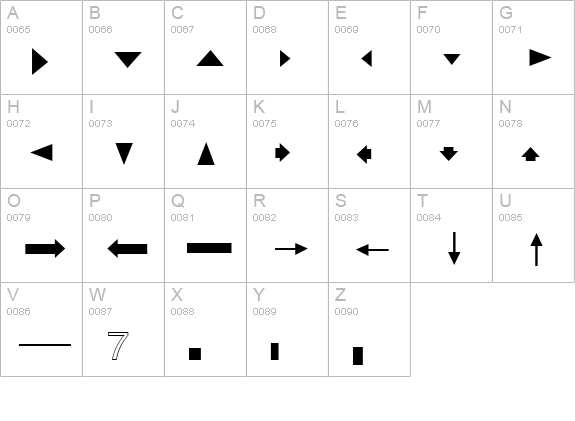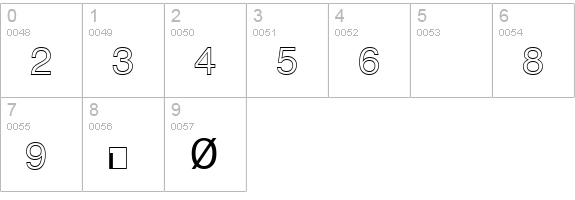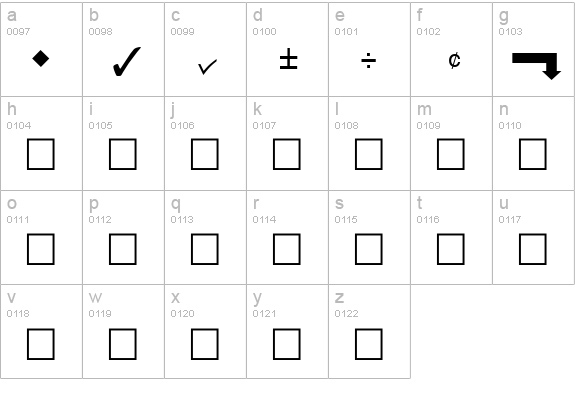
QuickType Pi Font Details
QuickType Pi font is a stunning and versatile typeface that is perfect for adding a touch of elegance and sophistication to any design project. With its sleek and modern appearance, this font is sure to capture the attention of viewers and make a lasting impression. Featuring a wide range of characters and symbols, QuickType Pi font is ideal for various applications, whether it's designing logos, creating eye-catching headlines, or adding a unique flair to your social media posts. Its clean and crisp lines give it a polished look, while its carefully crafted details add a sense of refinement. One of the standout features of QuickType Pi font is that it is absolutely free. Yes, you read that right! This incredible font can be freely downloaded at FontsMarket.com, allowing you to enhance your designs without breaking the bank. Whether you're a professional graphic designer or a casual user, having access to high-quality fonts like QuickType Pi font can elevate your work to the next level. Not only is QuickType Pi font visually appealing, but it is also incredibly easy to use. With its user-friendly design, you can quickly and effortlessly incorporate this font into your projects, saving you time and effort. Its versatility allows it to seamlessly integrate into any design theme or style, making it a go-to choice for designers of all levels. So, why wait? Take advantage of the amazing opportunity to download QuickType Pi font for free at FontsMarket.com and unlock a world of possibilities for your design projects. With its exceptional quality and accessibility, this font is a must-have in your collection. Elevate your designs and captivate your audience with QuickType Pi font today!